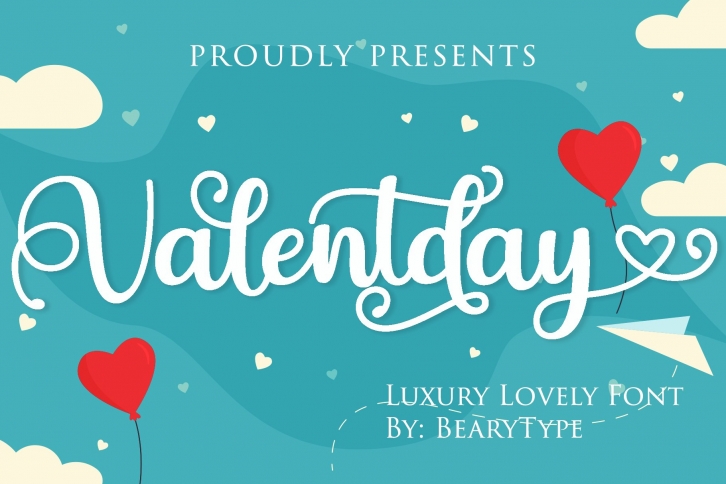
Valentday is a trendy and unique font with an authentic style. It was designed by BearyType and it's a great choice for creative people who need such a font. It was released on December 30, 2020 and the file size is 13.35 MB. Valentday will add an organic vibe to any design idea!